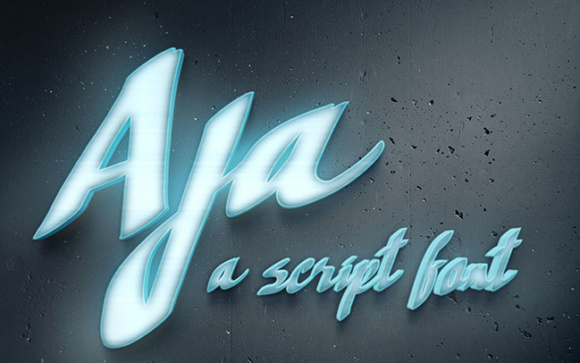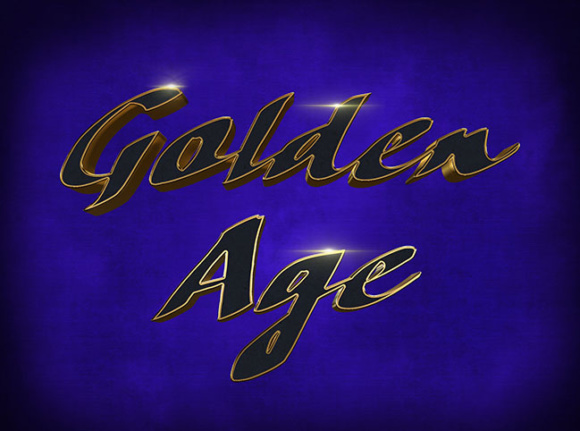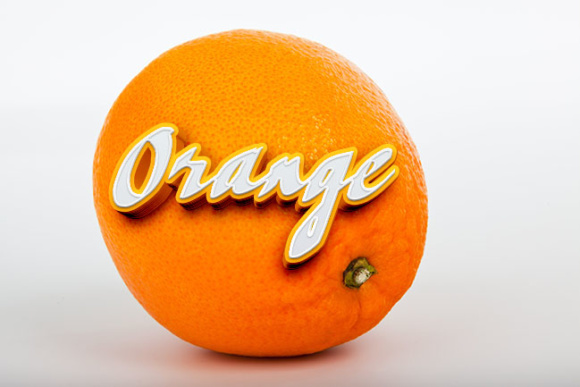
HomeScript FontsAja Font Script Fonts Aja Font FacebookXPinterestWhatsApp Aja Font Poster 2 Aja Font Poster 3 About Aja Font The Aja is a clean and striking script font. Ideal for headers and logos. DOWNLOAD ON CREATIVE FABRICAThis font is sold and delivered by Creative Fabrica. Font Canyon may earn a commission if you buy through this link. People also explored Yipes Font Bristle Font Montage Handmade Font Onthel Font Drippy Font Rokinsi Font Bellogi Font Adventure Font Homework Font 378 0 TagsAja Font Previous articleIndustrial Revolution FontNext articlePN Octopus Socks Font LEAVE A REPLY Cancel reply Comment: Please enter your comment! Name:* Please enter your name here Email:* You have entered an incorrect email address! Please enter your email address here Website: Save my name, email, and website in this browser for the next time I comment. Personal Use Free Awesome Snowflakes Font Personal Use Free Read more about this font Orchid Personal Use Free Read more about this font Charletto Personal Use Free Read more about this font Handayani Personal Use Free Read more about this font BLOG Best Fonts for YouTube Videos: Make Your Thumbnails Stand Out Best Fonts for YouTube Videos: Make Your Thumbnails Stand Out Choosing the right font can make a massive difference in how your YouTube videos perform.... Best Fonts for T-Shirt Design – Top 2025 Picks Where to Buy American Fonts Online in 2024 Transform Your Website: Elevate Your Typography with 7 Best Web Font Generators